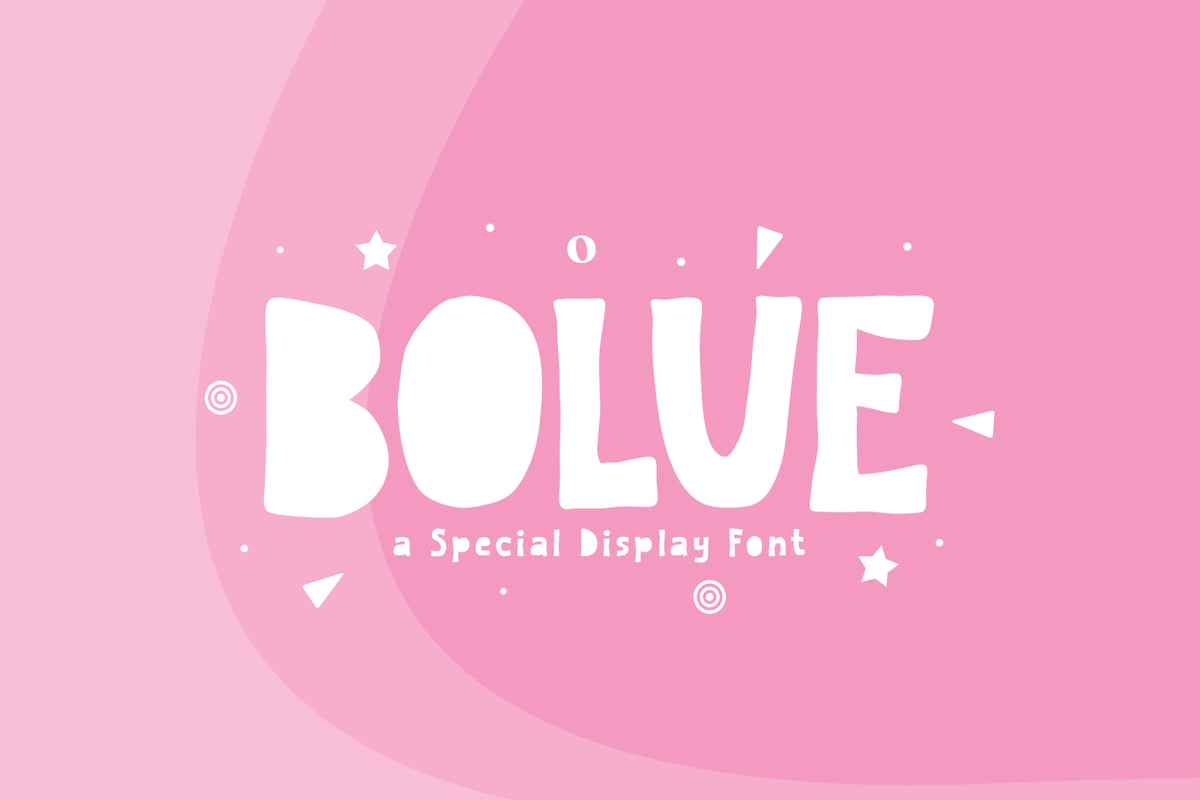
Bolue - Sweet & Playful Display Font
Bring pure childlike wonder to your designs with Bolue's irresistibly sweet and playful display font! This contemporary handwritten typeface bursts with vibrant personality and spirited energy that instantly captures attention. Every character radiates charm, making it an ideal choice for creating memorable designs that stand out from the crowd. Bolue's bold presence and delightful character make it incredibly versatile for posters, logos, magazines, book covers, banners, and countless other cre...